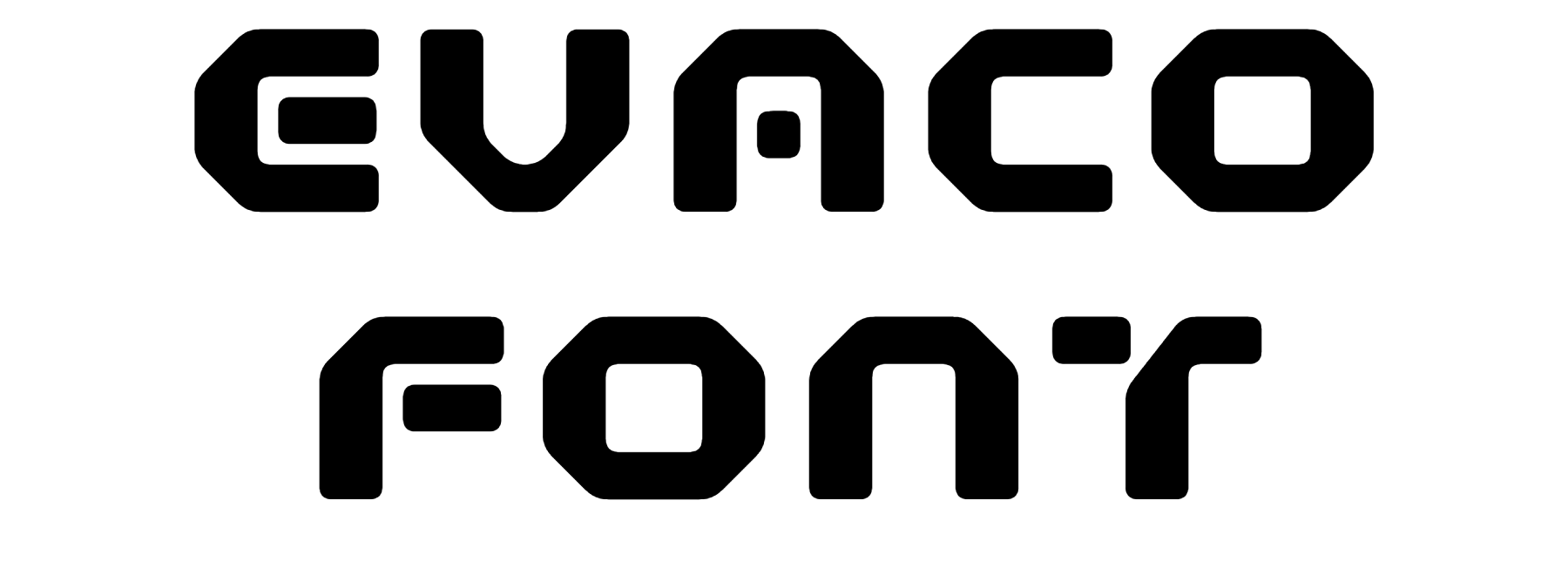
Evaco
Evaco is a techno font created by Iqbal Pauji (2026). Its angular, engineered shapes look right at home on screens and tech products. You can download it for free and test it with your own words in the preview above.
- Designer: Iqbal Pauji
- OpenType features: Stylistic alternates, one stylistic set and fractions
- Extra characters: 18 copy-and-paste alternates (Private Use Area)
With complete upper and lowercase letters and all ten digits, Evaco is ready for real wording, not just a single headline. Everyday marks like &, !, ? and @ are there too. Thanks to its accented letters, it also works for Spanish, French, German, Portuguese and Italian, not just English.
Evaco is a natural fit for gaming logos, tech branding and futuristic posters. Try it on a dark background with a bright accent color for a sharp, modern look.
Who designed Evaco font?
Does Evaco support accented letters?
Yes. Evaco includes the accented letters needed for Spanish, French, German, Portuguese and Italian, so it works for more than just English.
What fonts pair well with Evaco?
A simple sans serif like Roboto keeps longer text easy to read next to it.